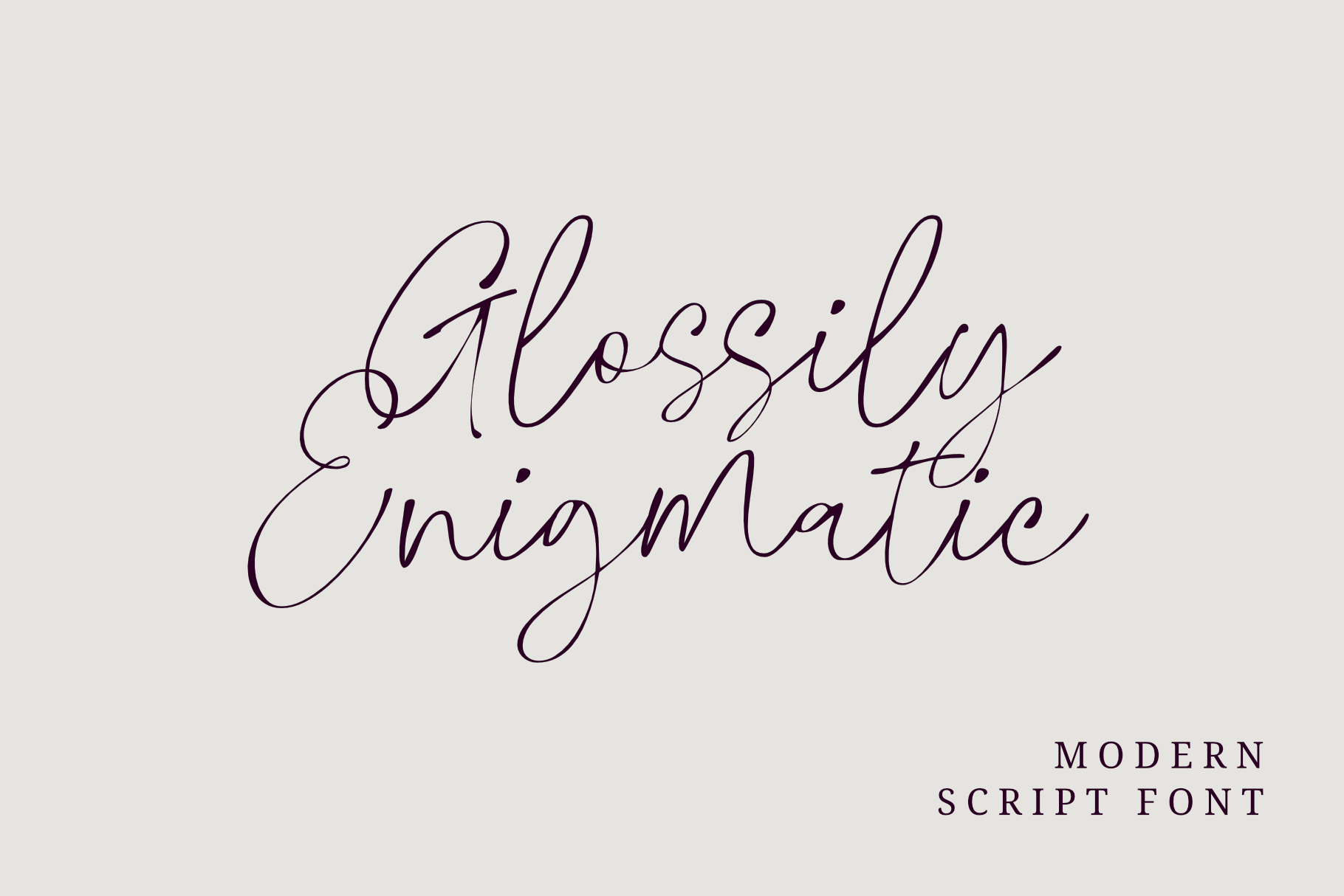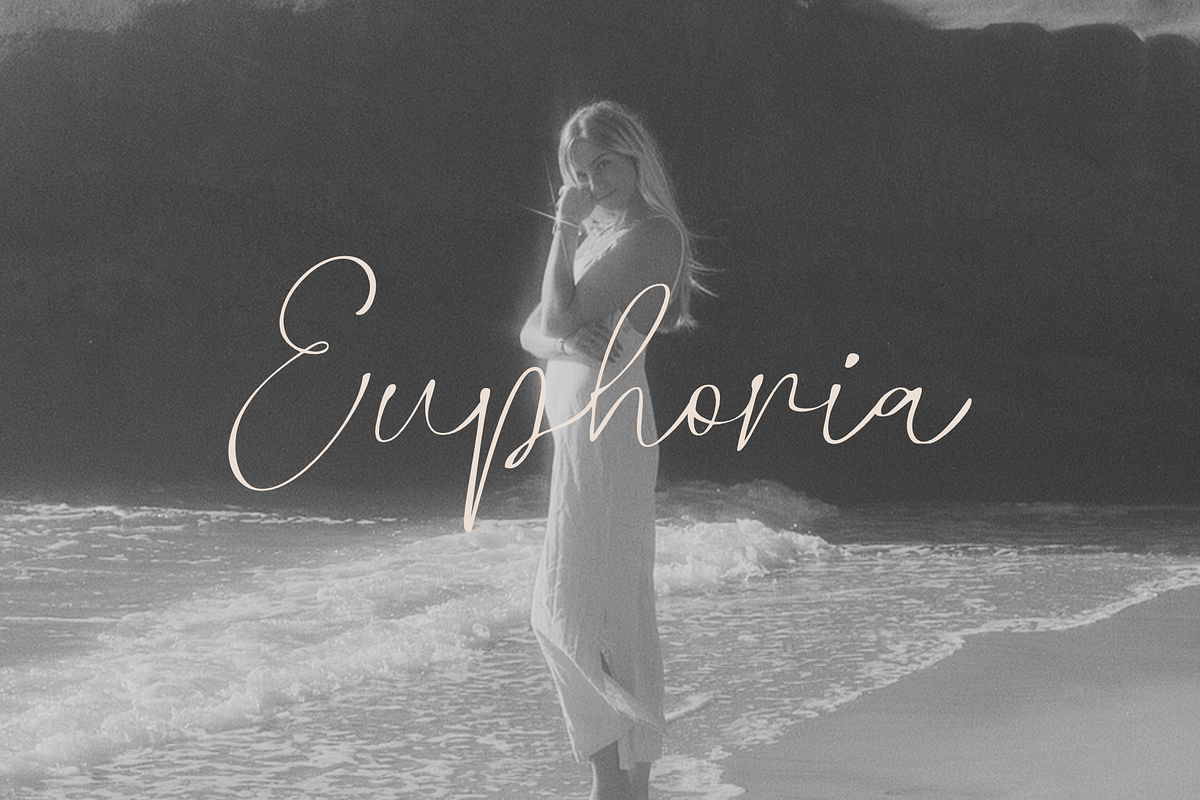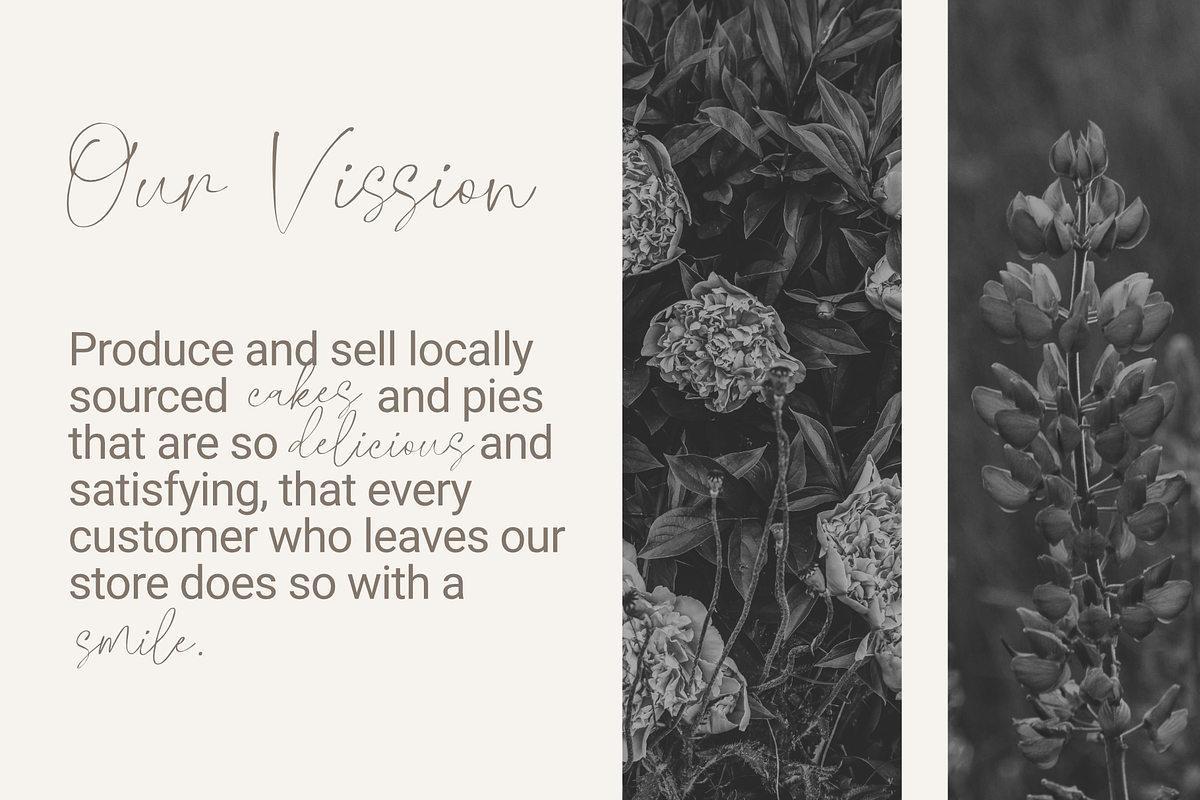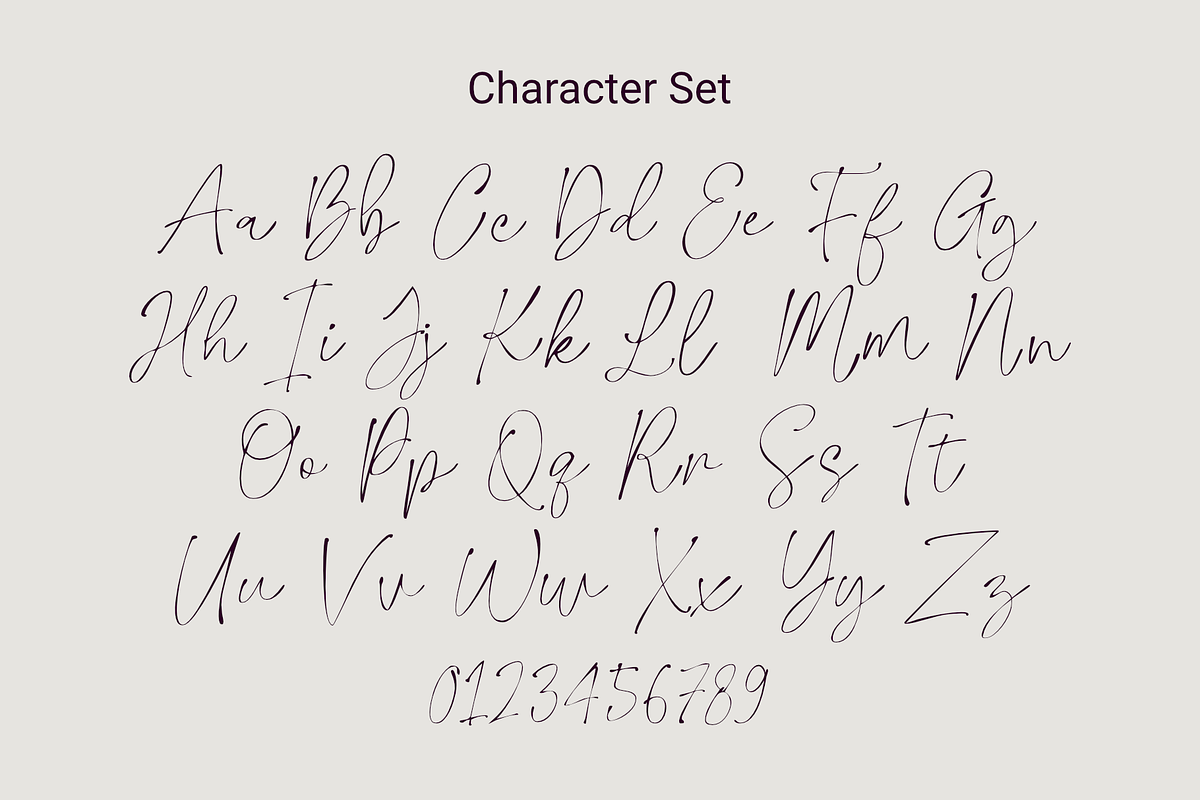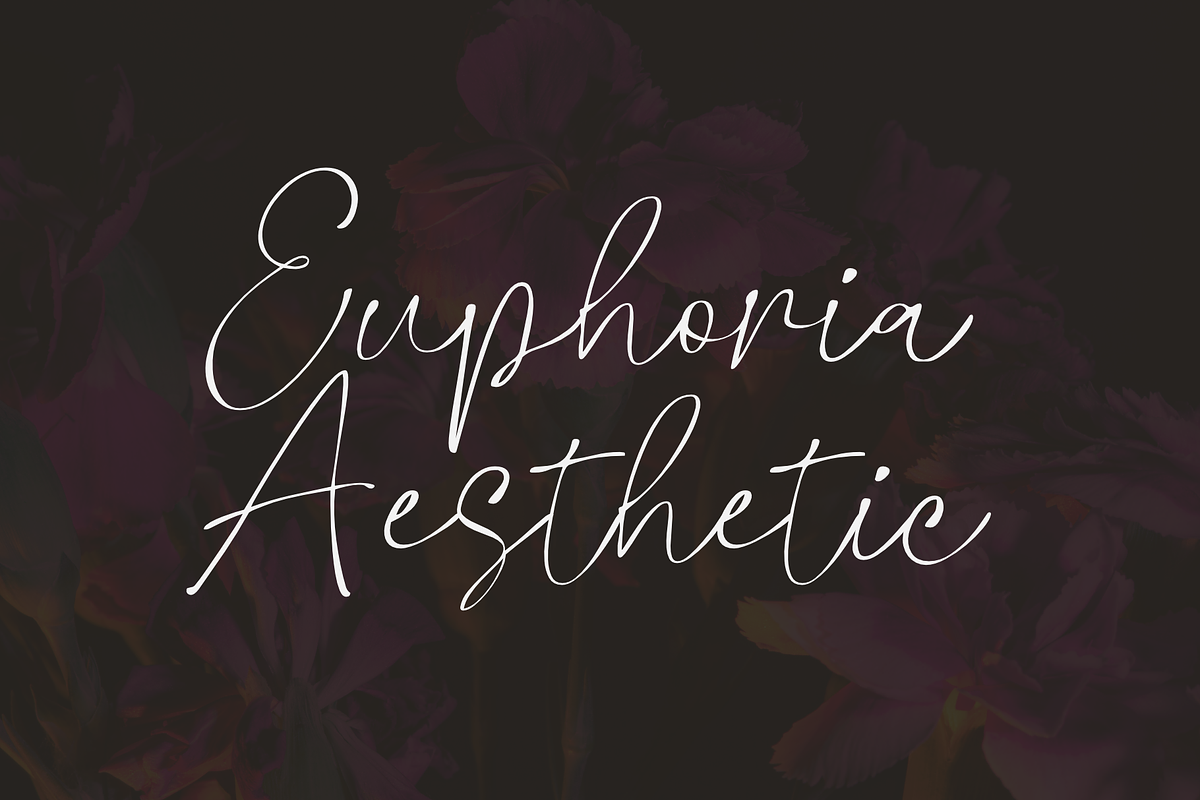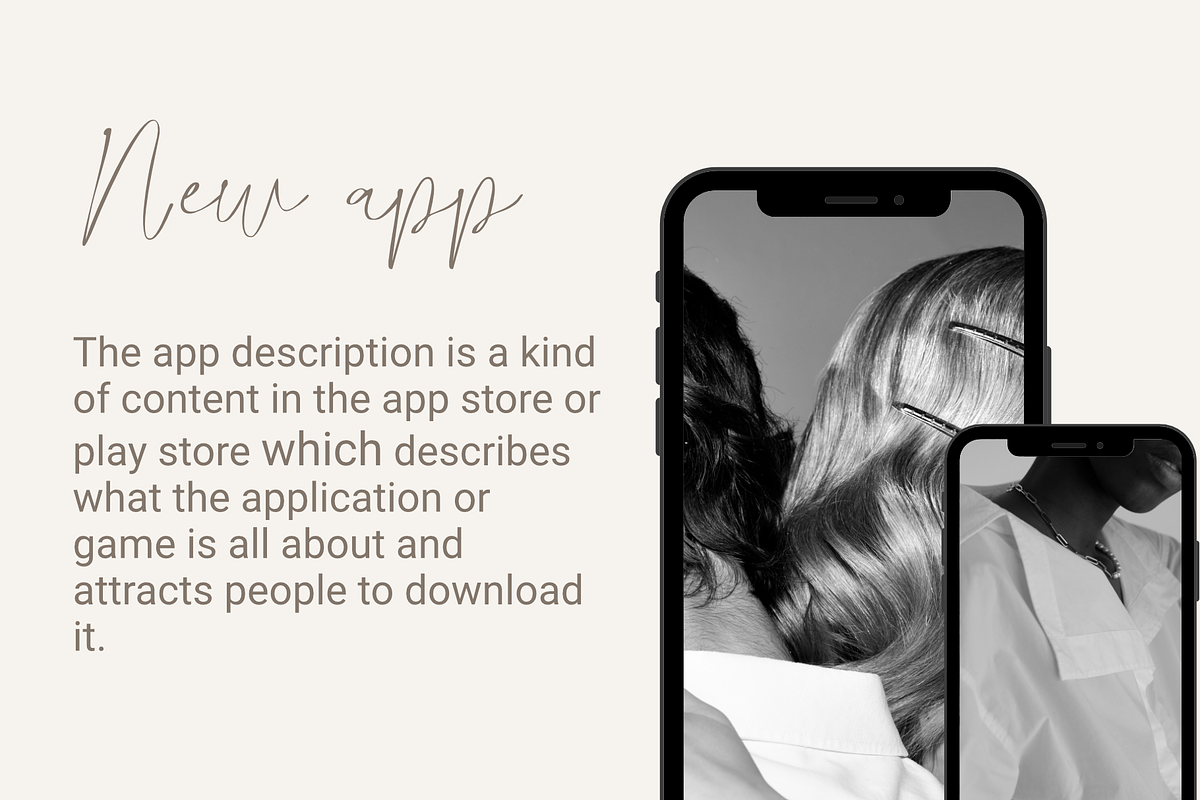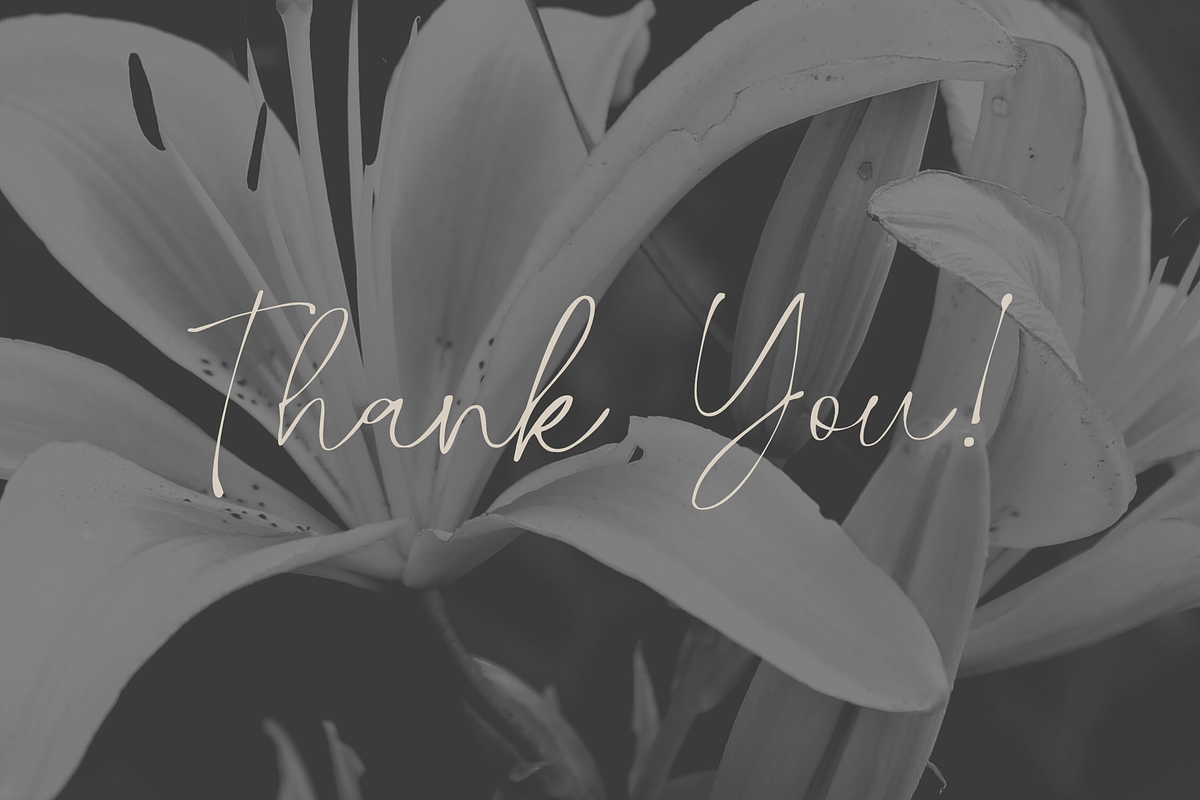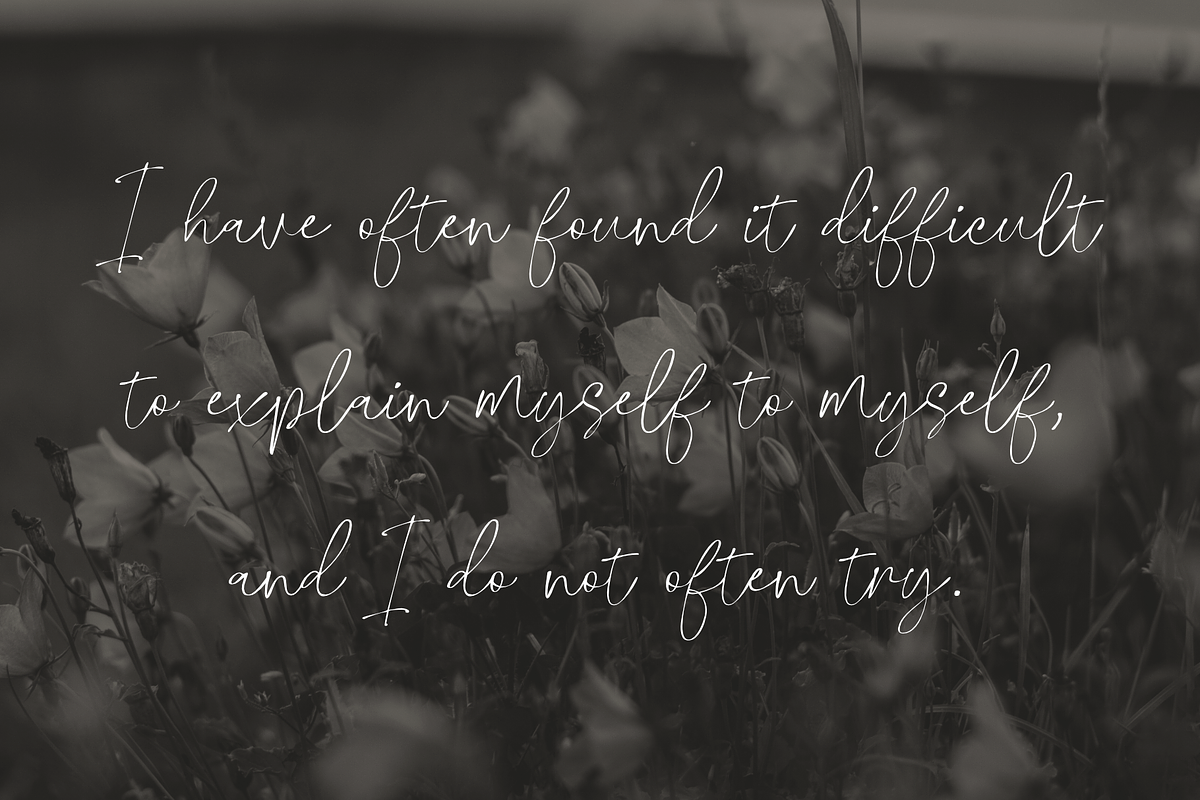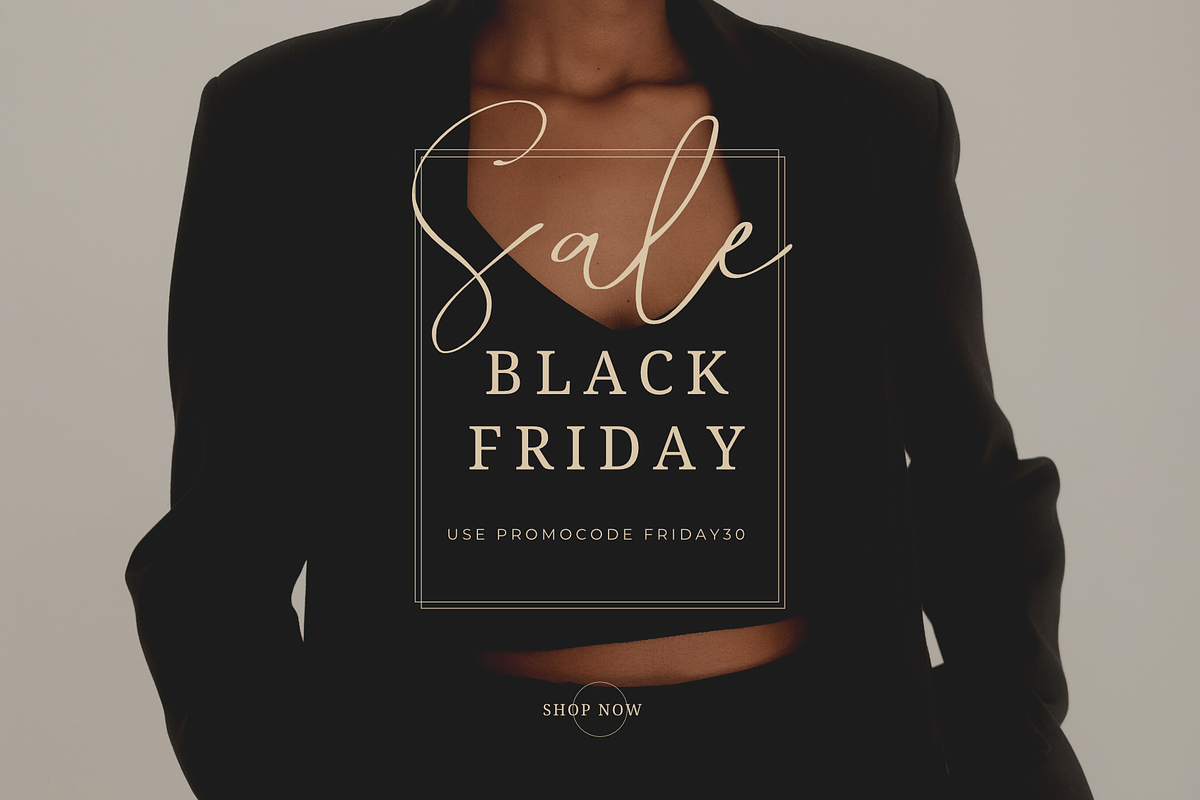
Glossily Enigmatic - a Modern Font
Glossily Enigmatic is a modern and natural handwritten font. It has has a elegant expression, with a charming and chic impression.
Glossily Enigmatic brings a warm feeling and cozy style to your design such as wedding, stationery, logos, social media quotes, branding identity, and many more.